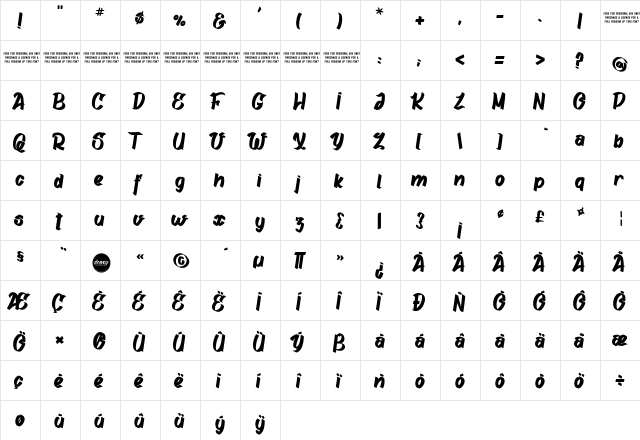
Gatalike_Personal Use Regular
| Foundry | dcoxy Medina Gregory |
| Designer | dcoxy Medina Gregory |
Design Context for Gatalike_Personal Use Typeface
Gatalike_Personal Use is a composed and adaptable typeface that performs quietly and consistently across a wide range of design contexts.